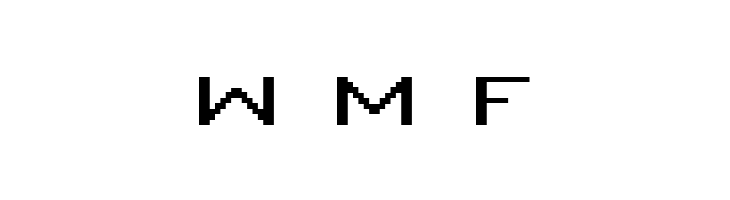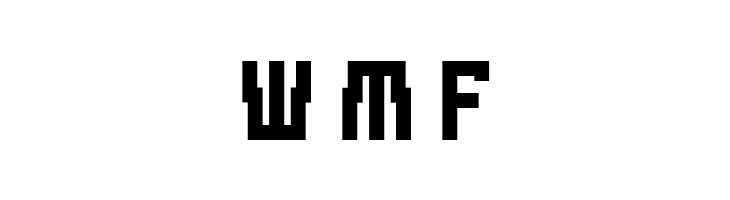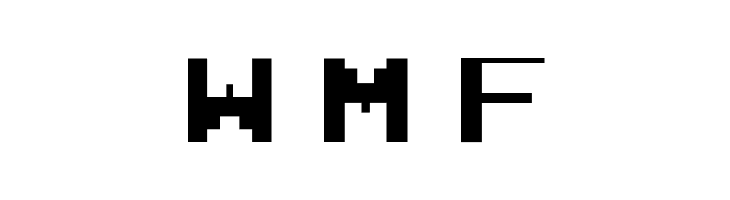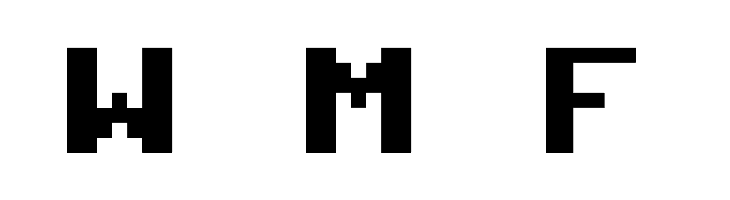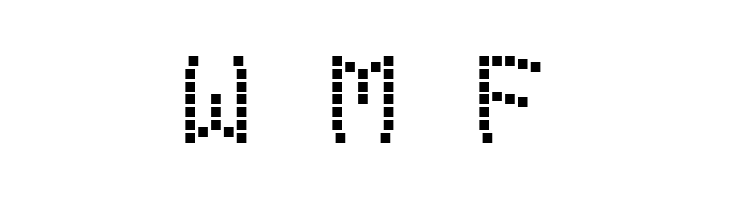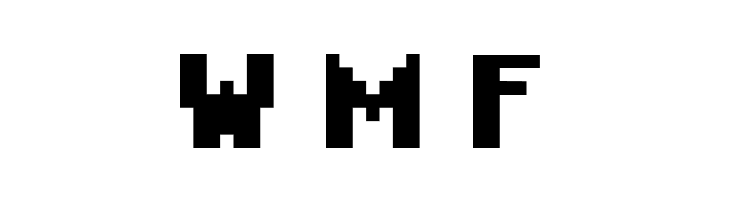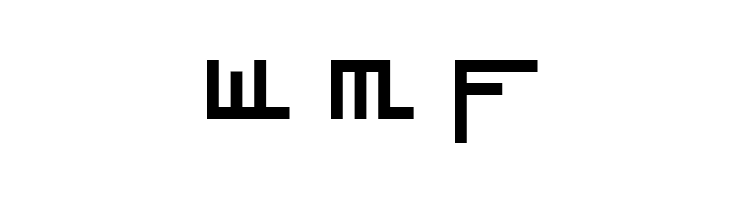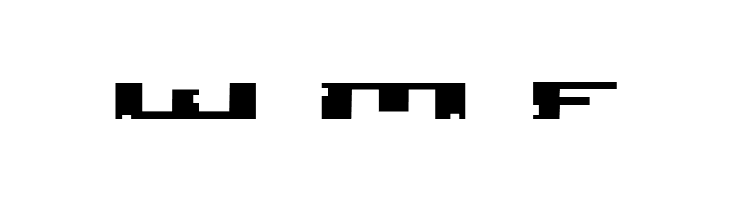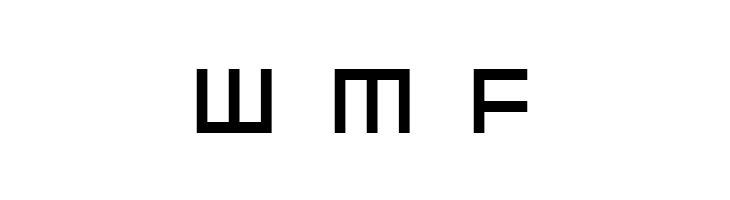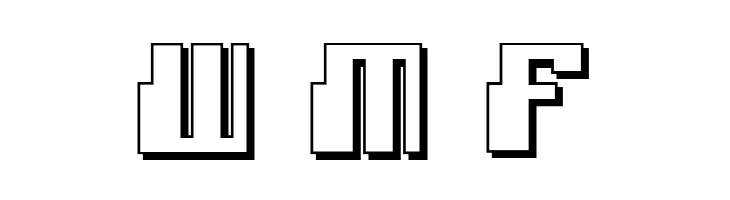
A pixelated, geometric font inspired by retro digital displays.
A bold, geometric, pixelated font with a retro digital style.
A bold, condensed, and geometric font with a modern, pixelated style.
A bold, pixelated font with a retro, digital aesthetic.
A pixelated, monospaced font with a retro digital aesthetic.
A pixelated, retro-style font with a blocky, digital appearance.
A pixelated, retro-style font with a digital display aesthetic.
A pixelated, geometric font inspired by retro digital displays.
A futuristic, geometric font with bold, pixelated outlines.
A bold, pixelated font with a retro, digital aesthetic.
A pixelated, digital-style font with a retro tech aesthetic.
A pixelated, retro-style font with a bold, geometric design.
A bold, pixelated font with a retro digital display style.
A pixelated, retro-style font with a digital, tech-inspired aesthetic.
A pixelated, retro-style font with a blocky, monospaced design.